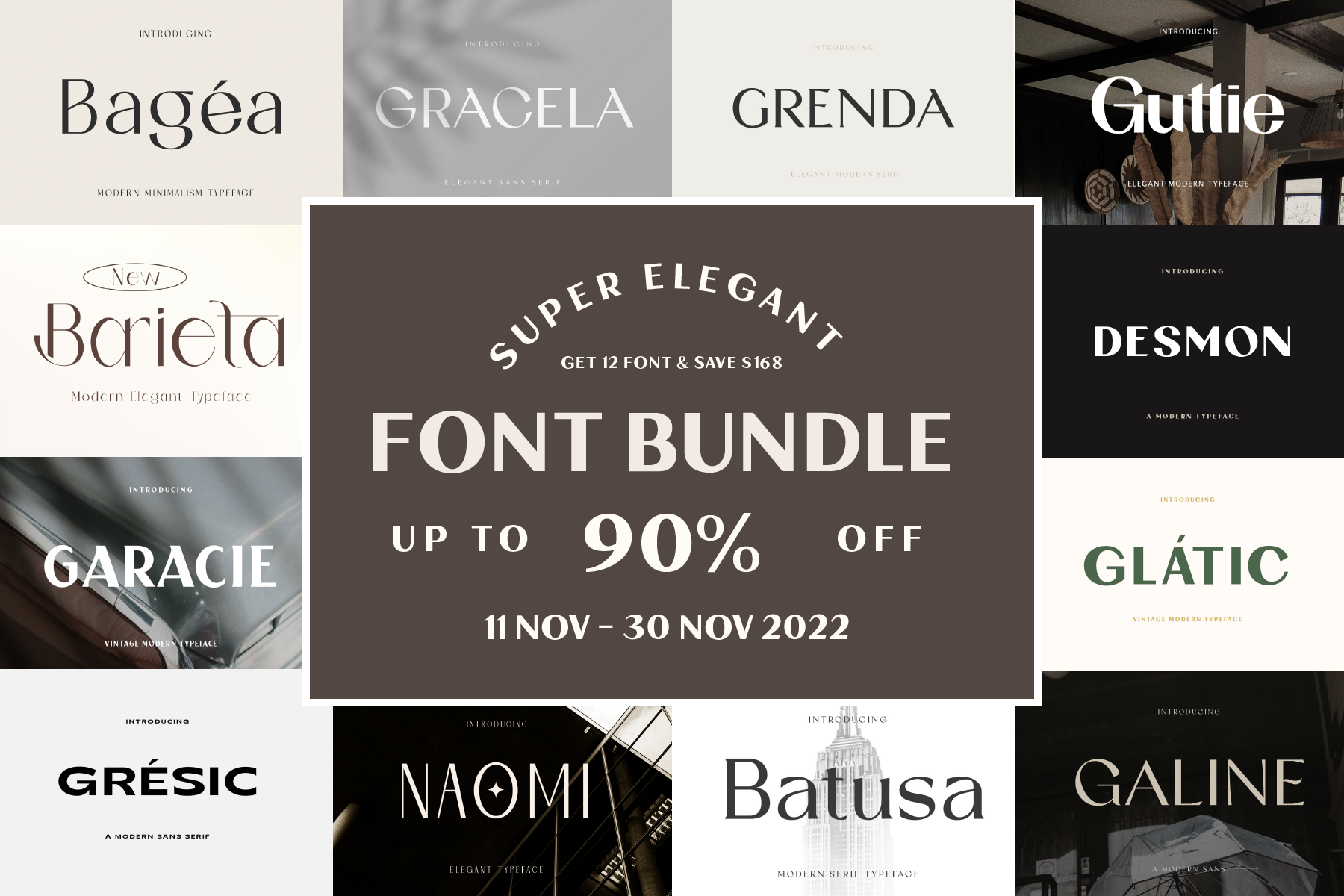
Elegant Modern Bundle Fonts
Elegant Modern Bundle Fonts of 12 fresh & trendy display fonts products, the perfect collection for content creators who want to stand out but be easy to understand.
You'll get lots of variety with fonts ranging from sleek, subtle & elegant, to luxurious. Perfect for branding, logos, headings, advertising, product packaging, web design, print design, and more!